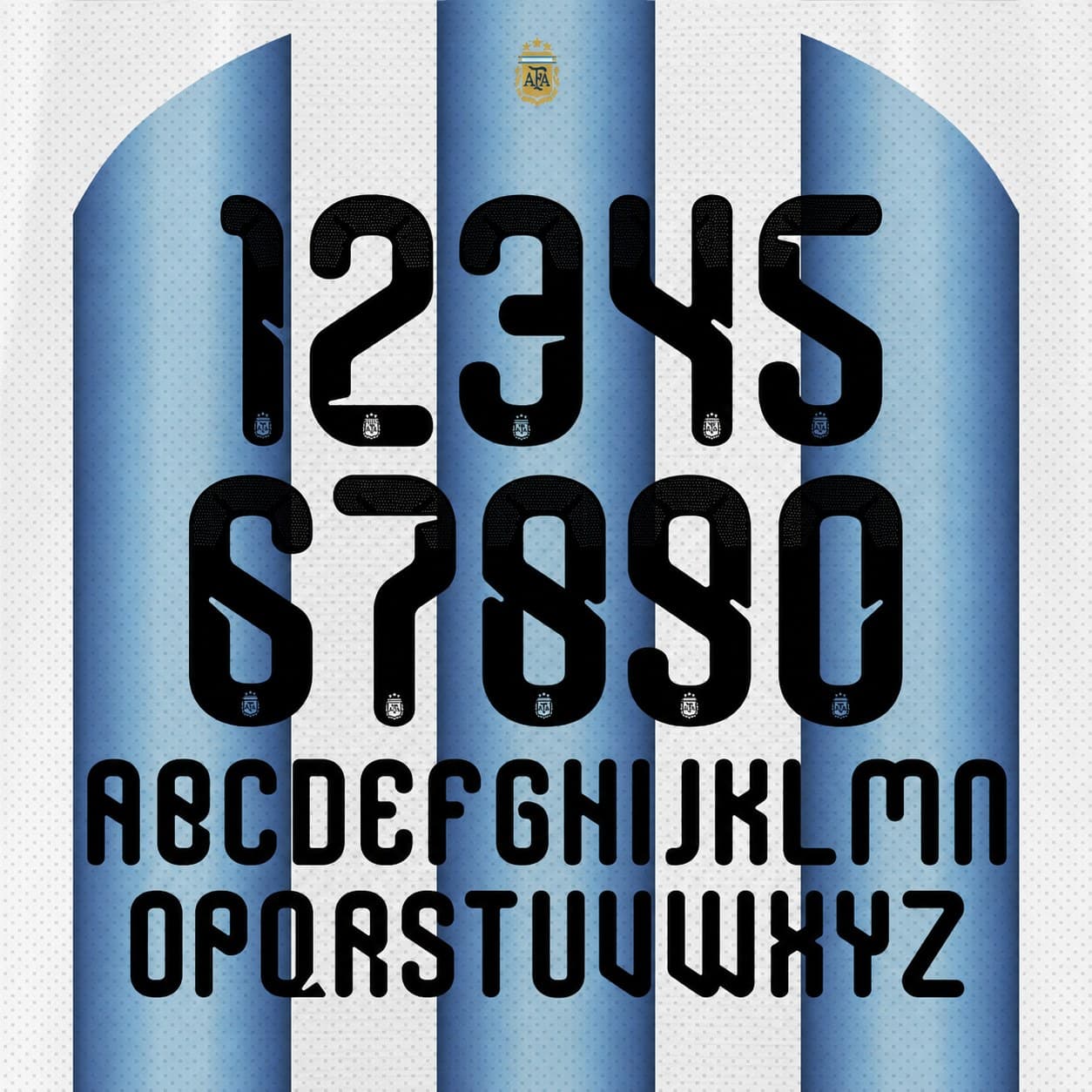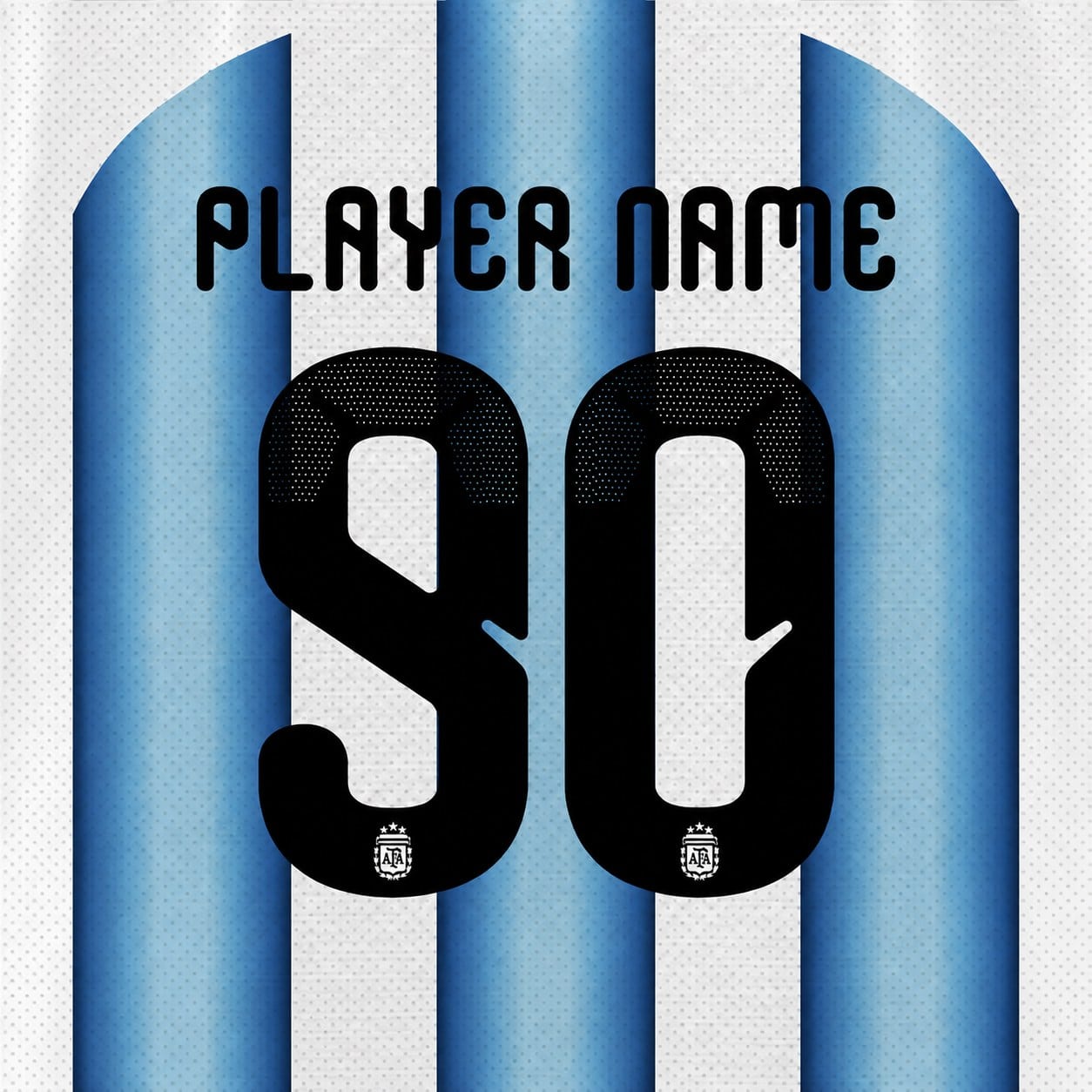
Complete Argentina World Cup 2026 font set — every letter and every number in one kit, in the lettering style seen on the 2026 national team shirt.
- Full set included: all letters A–Z + all numbers 0–9, exactly as shown
- Fine crest detailing inside the characters
- Make any name & number combination (e.g. MESSI 10) — fits adult and kids jerseys